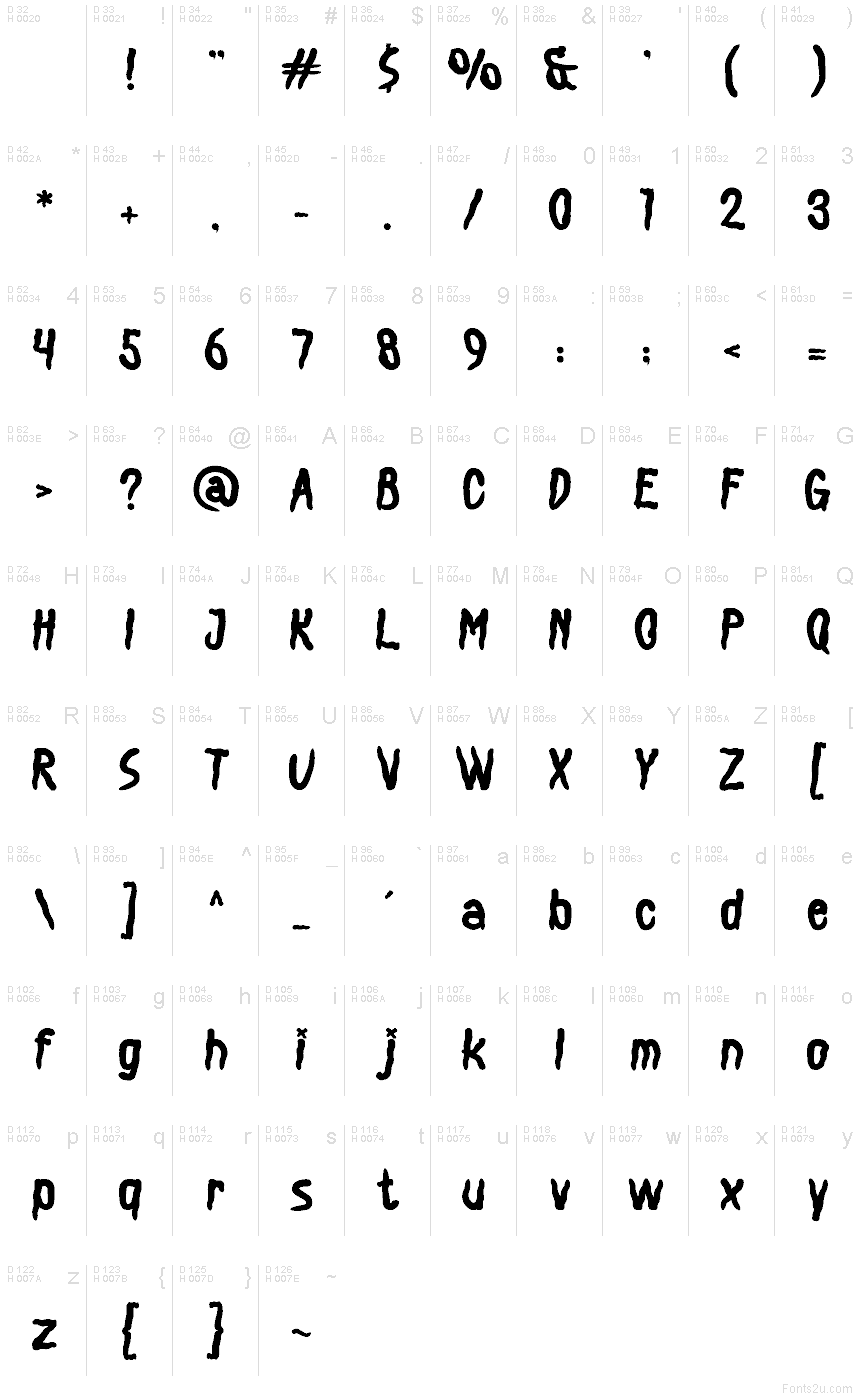
BASEMENT HORROR
Basement Horror font by Gilang Ternadho is a free scary display font. Its letters look smeared and drippy, like wet ink sliding down a wall—uneven, lumpy silhouettes with a nervous, creeping rhythm. The strokes wobble just enough to feel hand-drawn, yet the forms stay legible at headline sizes, giving you instant dread without sacrificing clarity.
Using Basement Horror, your haunted house posters, Halloween party invites, slasher movie titles, escape room signage, horror podcast covers, and spooky YouTube thumbnails all get that sticky, late-night chill. This free font works beautifully big and bold; pair it with a clean, condensed sans for body copy, and keep backgrounds dark to let the inky edges bite.